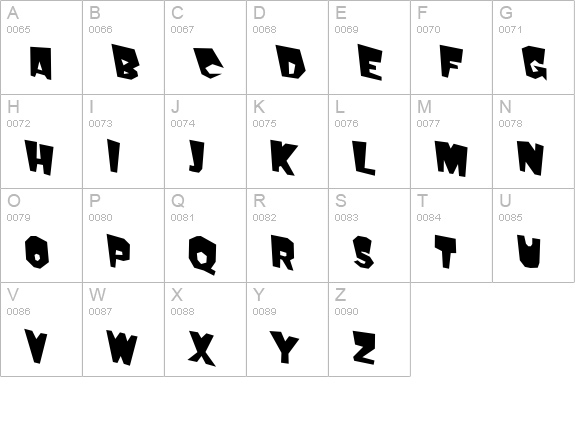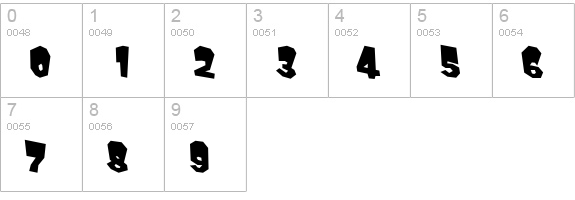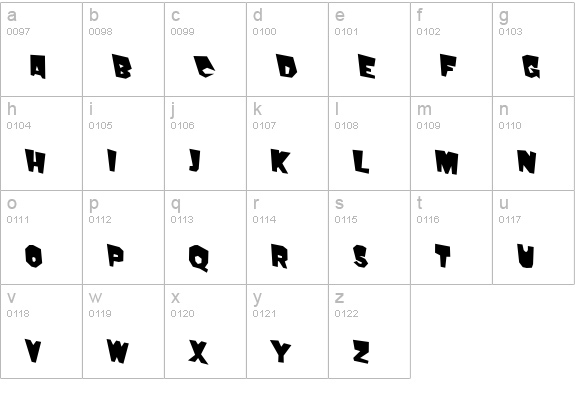
FuddyDuddy118 Bold Font Details
FuddyDuddy118 Bold is a strong, high-contrast variant in the FuddyDuddy118 typeface family \xE2\x80\x94 well suited to headlines, attention-grabbing titles, and strong calls-to-action.
FuddyDuddy118 Bold font is a stylish and eye-catching typeface that exudes confidence and sophistication. With its bold and commanding presence, this font is perfect for making a statement in headlines, logos, posters, and more. The strong lines and sharp edges of FuddyDuddy118 Bold font make it a versatile choice for both digital and print designs. Best of all, FuddyDuddy118 Bold font is available for free download at FontsMarket.com, making it accessible to designers, creatives, and anyone looking to add a touch of boldness to their projects. Whether you're creating a striking advertisement or designing a modern website, FuddyDuddy118 Bold font is sure to make a lasting impression. Download it today and elevate your designs with this powerful and impactful typeface.